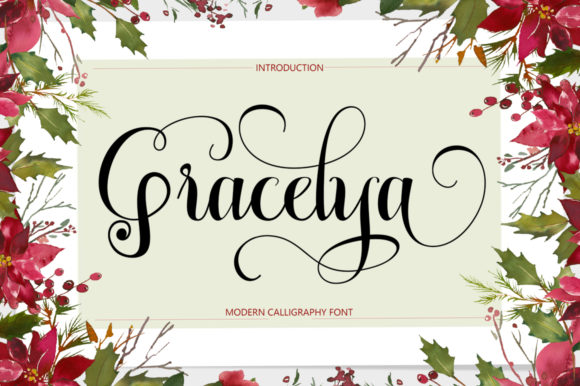
Gracelya Font
Step into the world of Gracelya Font, where classic calligraphy meets contemporary elegance. Inspired by the timeless art of penmanship, Gracelya brings a touch of sophistication and charm to your designs.
With its graceful strokes and enchanting curves, Gracelya captivates the eye and invites your creativity to soar. Its versatility knows no bounds, whether you're crafting captivating headlines, alluring branding, or simply adding a touch of allure to your daily writing. Gracelya's ability to transform ordinary text into works of art is truly magical.
Imagine your words adorned with the finesse of Gracelya, captivating your audience with a touch of timeless beauty. Its meticulously crafted glyphs and swashes dance across the page, creating an ethereal symphony of form and function. Experience the joy of transforming your designs from ordinary to extraordinary with Gracelya Font.